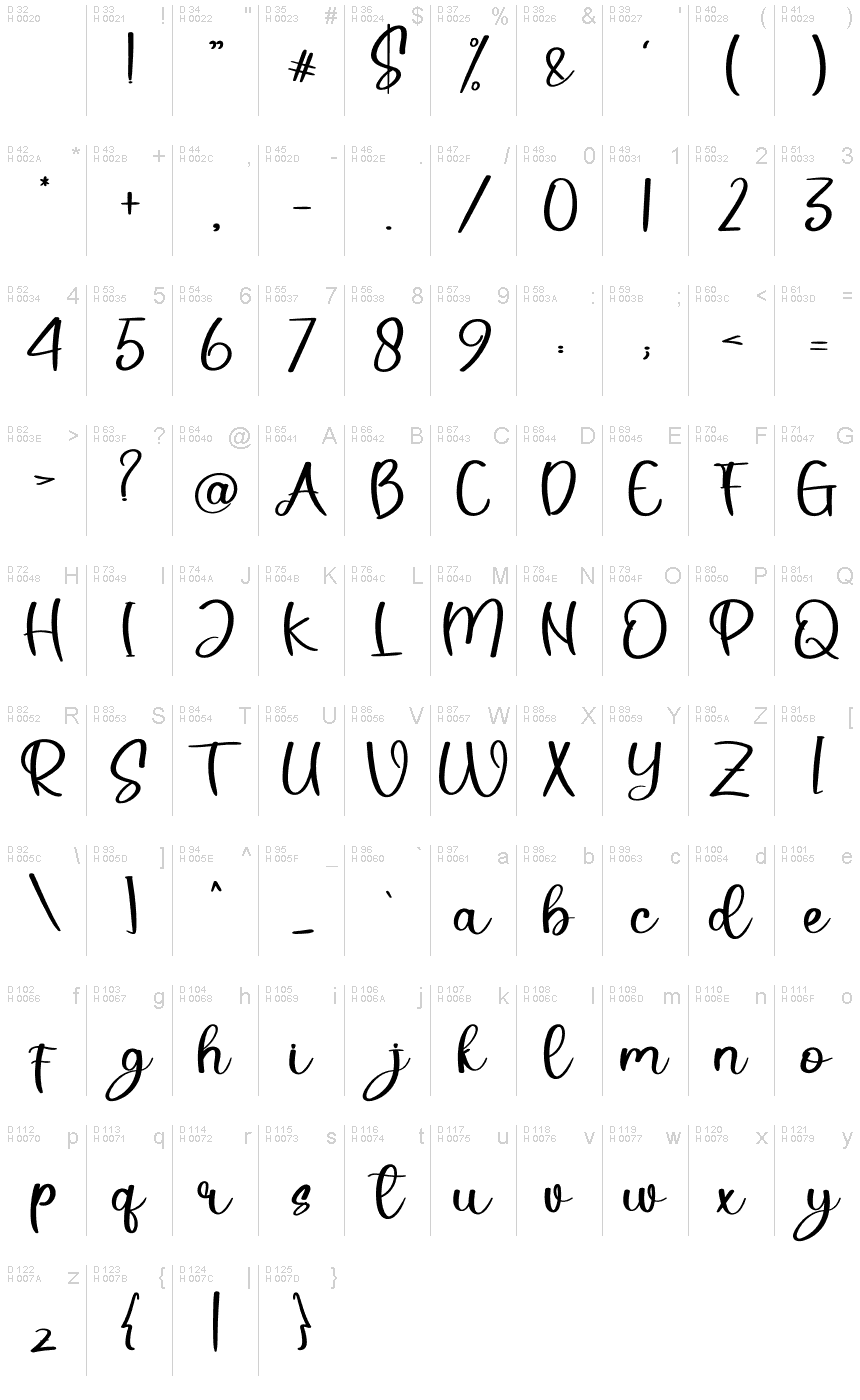
Monday
without any special software. Monday is a semi-light font, making it perfect for adding a subtle touch of elegance to your designs. Its flowing and organic strokes give it a natural and authentic feel, creating a sense of warmth and intimacy.
Whether you're designing for a wedding, a fashion brand, or a lifestyle blog, Monday will bring an air of sophistication to your projects. With its versatility and timeless appeal, this handwritten font is sure to make your designs stand out in the crowd.